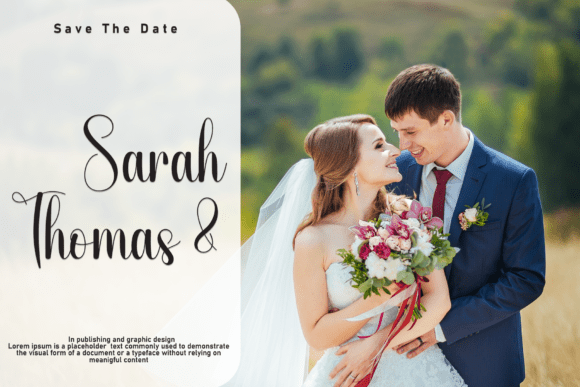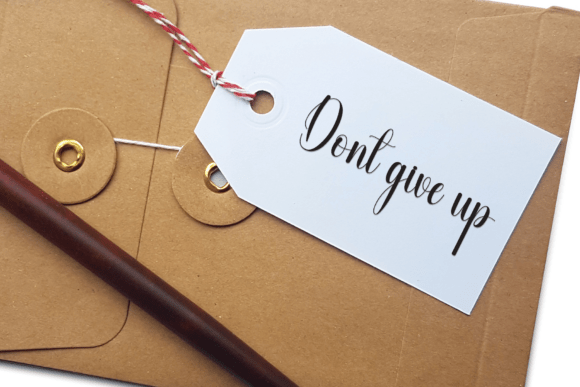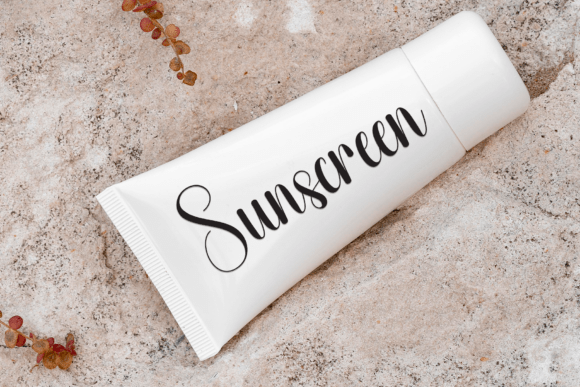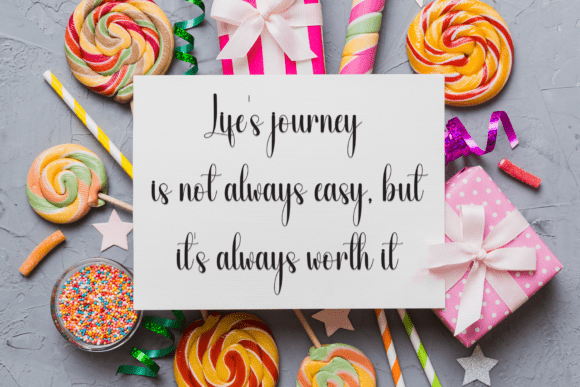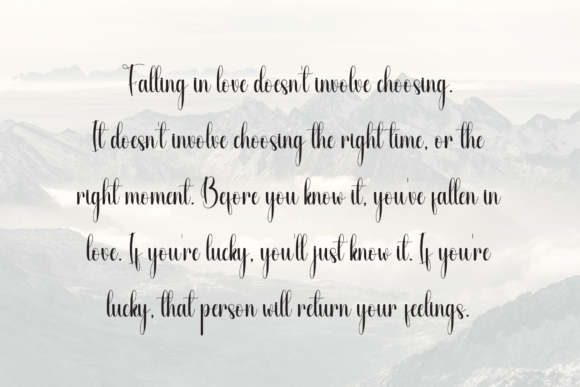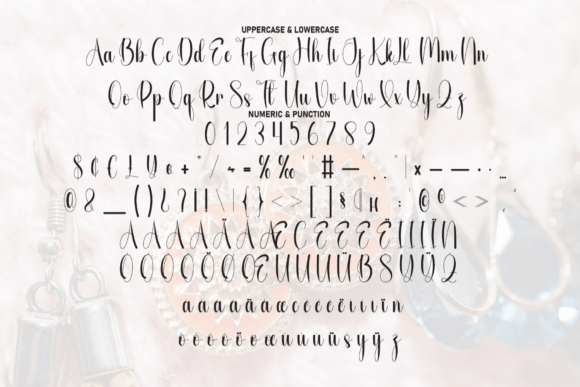
Earring Font: Elevate Your Designs with Elegance and Sophistication
In the world of design, typography plays a crucial role in conveying the tone and aesthetic of a brand or project. For designers and crafters seeking a font that exudes elegance and sophistication, Earring Font is an excellent choice. This chic handwritten script font boasts graceful lines and a fashionable look, making it perfect for a variety of applications, from jewelry branding to fashion blogs, product packaging, invitations, and more.
The Essence of Earring Font
Earring Font is a modern calligraphy-style script font that embodies the essence of luxury and refinement. Its fluid, connected letters create a sense of movement and harmony, evoking the feeling of high-end jewelry and fashion. The font’s delicate lines and subtle curves add a touch of whimsy, making it an excellent choice for designers who want to add a dash of personality to their work.
Ideal Applications for Earring Font
Earring Font’s versatility makes it suitable for a wide range of design projects, including:
- Jewelry branding: Earring Font is an obvious choice for jewelry brands looking to create a sophisticated and luxurious image. Its elegant lines and refined aesthetic make it perfect for logo design, packaging, and marketing materials.
- Fashion blogs: Fashion bloggers and influencers can elevate their brand with Earring Font’s stylish and modern look. Use it to create eye-catching headlines, titles, and captions that reflect your fashion-forward personality.
- Product packaging: Add a touch of luxury to your product packaging with Earring Font. Its elegant script style makes it perfect for high-end product labels, tags, and packaging materials.
- Invitations: Create stunning invitations for weddings, parties, and other special events with Earring Font. Its refined aesthetic ensures that your invitations will make a lasting impression on your guests.
Why Choose Earring Font?
With so many fonts available, why choose Earring Font? Here are just a few reasons why designers and crafters love this elegant script font:
- Unique and stylish: Earring Font’s modern calligraphy style sets it apart from more traditional fonts. Its unique and stylish aesthetic ensures that your designs will stand out from the crowd.
- Elegant and sophisticated: Earring Font exudes elegance and sophistication, making it perfect for high-end design projects. Its refined lines and subtle curves add a touch of luxury to any design.
- Versatile: Earring Font is incredibly versatile, making it suitable for a wide range of design applications. Use it for digital projects, print materials, or even hand-lettering.
Tips for Using Earring Font
To get the most out of Earring Font, here are a few tips to keep in mind:
- Use it sparingly: Earring Font’s elegance and sophistication are best showcased when used sparingly. Use it for headlines, titles, or key phrases to add a touch of luxury to your design.
- Pair it with contrasting fonts: Pair Earring Font with contrasting fonts to create visual interest and hierarchy in your design. A bold, sans-serif font can provide a nice contrast to Earring Font’s elegant script style.
- Experiment with colors: Earring Font looks stunning in a variety of colors, from metallic tones to rich jewel tones. Experiment with different colors to find the perfect match for your design.
Earring Font is a stunning handwritten script font that offers elegance, sophistication, and versatility. Its modern calligraphy style makes it perfect for a wide range of design projects, from jewelry branding to fashion blogs, product packaging, invitations, and more. With its unique and stylish aesthetic, Earring Font is sure to elevate your designs and make them stand out from the crowd.